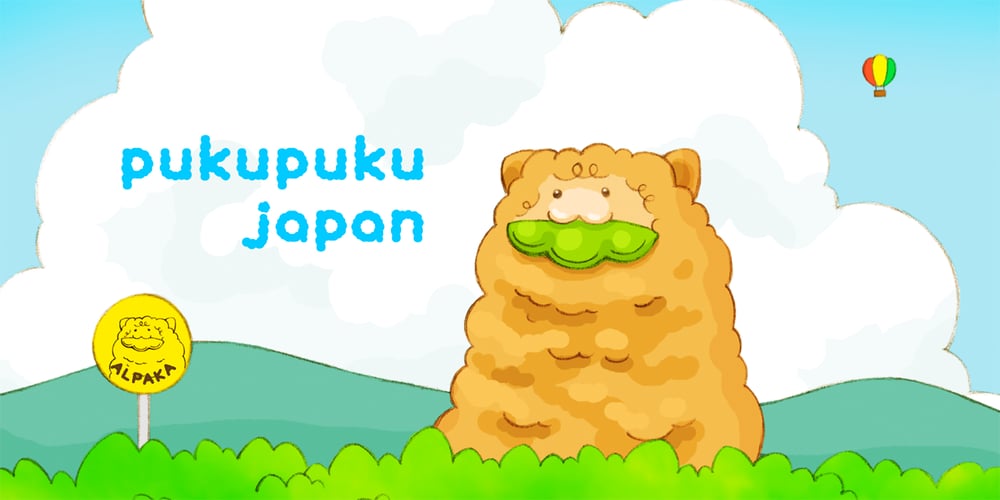
Pukupuku japan Font Family was designed by published by yamayama. Pukupuku japan contains 1 styles and family package options. Pukupuku-japan is a cute round font. This font is designed based on the shape of clouds and beans, which looks somewhat like handwritten letters. About 4,000 Japanese letters, including hiragana, katakana, kanji, symbols and alphanumeric letters are stored here. A Japanese keyboard is recommended to type with this font.